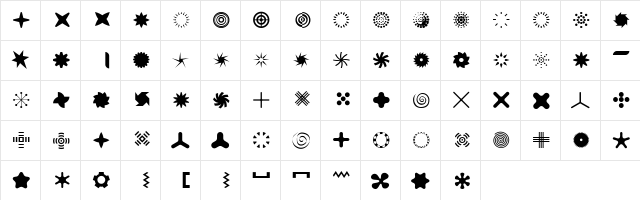
FFDingbats Regular
| Foundry | Copr. by FSI designed by Factor Design |
Design Context for FFDingbats Typeface
FFDingbats takes a measured approach to typography — its balanced proportions and neutral character make it a reliable workhorse for both digital and print work.